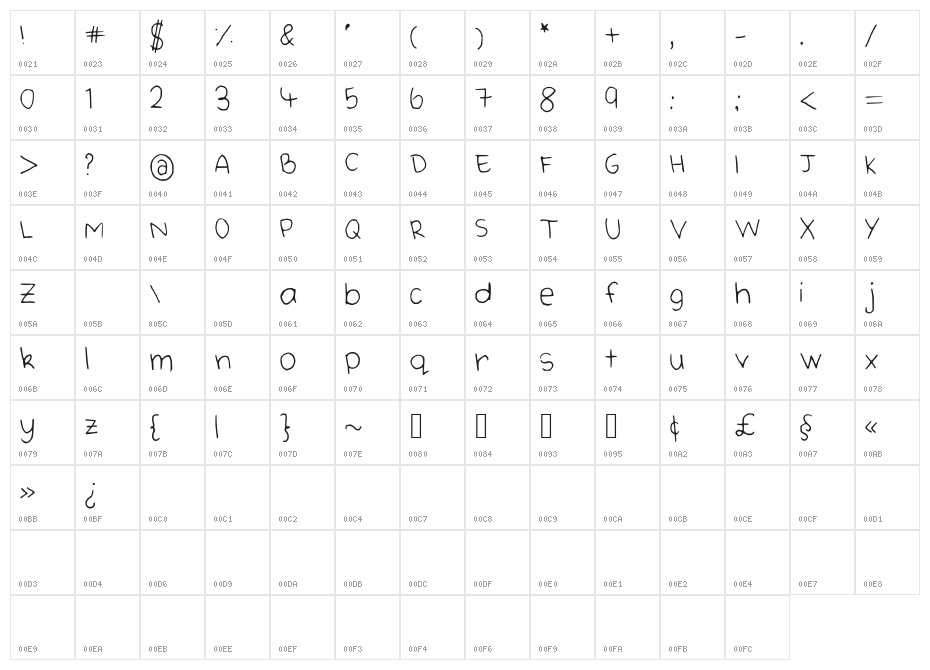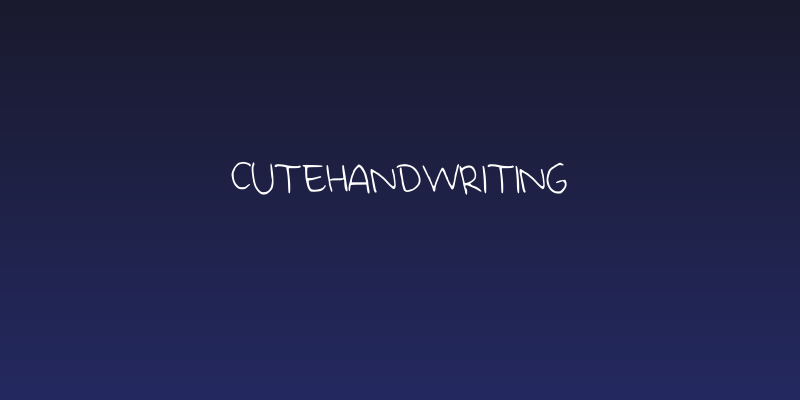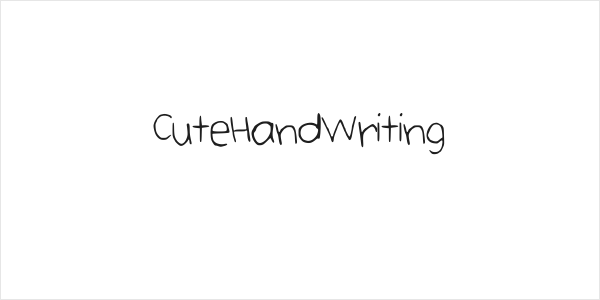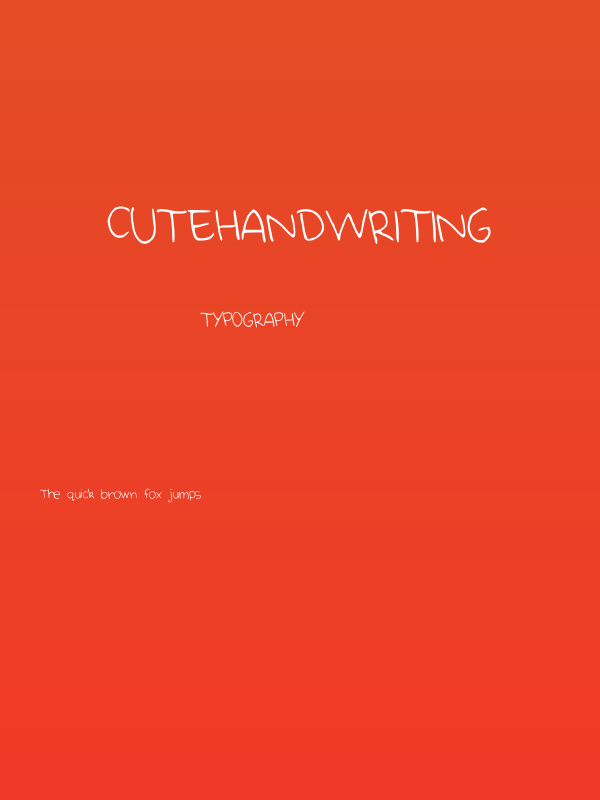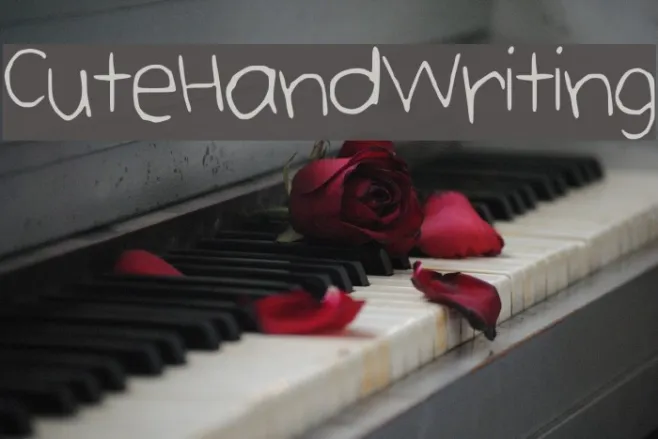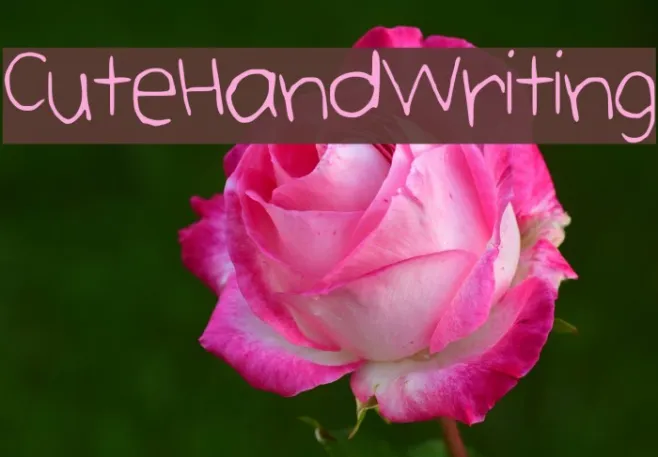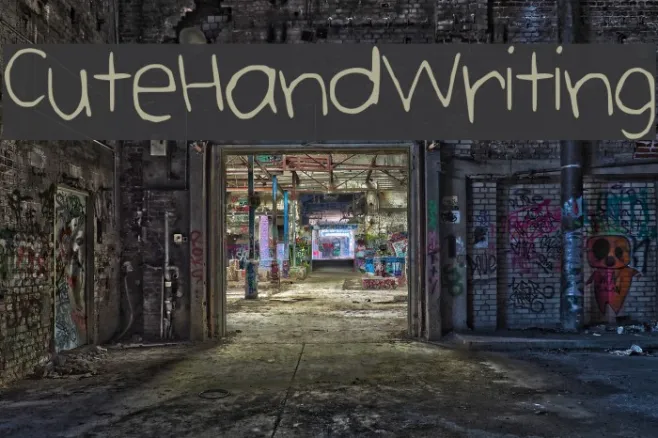
CuteHandWriting Font
CuteHandWriting Description
This playful and whimsical font features a handwritten style that exudes charm and approachability. The characters are slightly irregular, giving it an authentic, personal touch. The strokes are smooth and rounded, with a consistent thickness that maintains readability. The uppercase and lowercase letters are well-balanced, and the numerals are clear and distinct. Special characters are creatively designed, adding to the font's overall friendly appearance. This font is perfect for projects that require a casual and inviting feel.
CUTEHANDWRITING UPPERCASE
CUTEHANDWRITING LOWERCASE
CUTEHANDWRITING OTHER CHARS